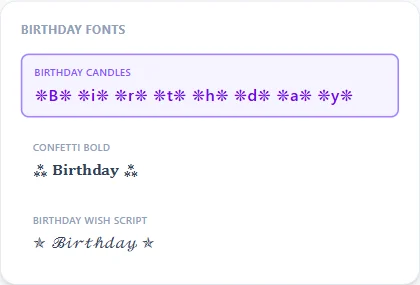
Birthday Fonts
"Happy birthday" reads flatter in plain text than almost any other message, so this page leads with a handful of styles built specifically for it: Birthday Candles frames every single letter like its own lit candle, Confetti scatters a burst symbol through bold, script, and bubble alphabets, and Birthday Wish pairs a shooting-star mark with a flowing script for the moment right before blowing out the candles.
Birthday Fonts style examples: Birthday Candles, Confetti Bold, Birthday Wish Script, rendered on the word "Birthday"
Three styles built specifically for birthdays
Birthday Candles wraps every letter individually in a flame-like mark, so a short name or "HBD" reads like a row of candles across a cake. Confetti takes that same idea whole-string instead of per-letter, scattering a burst symbol around bold, script, or bubble text for a party-flyer feel. Birthday Wish pairs a shooting-star mark with script or small caps, for the quieter "make a wish" moment rather than the loud party announcement.
Picking a style for a card vs. a caption vs. a cake sign
A physical or digital card has room for a longer, more decorative style like Birthday Wish Script. A social caption competing with a busy feed reads better in something bold and high-contrast, like Confetti Bold. A printed or drawn cake sign benefits from Birthday Candles, since the per-letter framing already looks like part of the decoration rather than plain type dropped on top.
Is there a style made specifically for birthdays, or are these just the general list?
Birthday Candles, Confetti (Bold/Script/Bubble), and Birthday Wish (Script/Caps) were built specifically for this page — they lead the list, with the rest of the site's 160+ general styles available below.
Can I use a birthday style for a name, not just "Happy Birthday"?
Yes, type whatever you want (a name, an age, "HBD") — every style applies to any text you enter, not just the word "birthday."
Why does Birthday Candles add a space between every letter?
It frames each character individually rather than the whole word at once, and a small gap keeps each "candle" visually separate — the same mechanic used by this site's Heart Letters and Star Letters styles.
Do these fonts work for other celebrations, not just birthdays?
Yes — Confetti and Birthday Wish read fine for graduations, anniversaries, or any other celebratory message; nothing about the underlying characters restricts them to birthdays specifically.